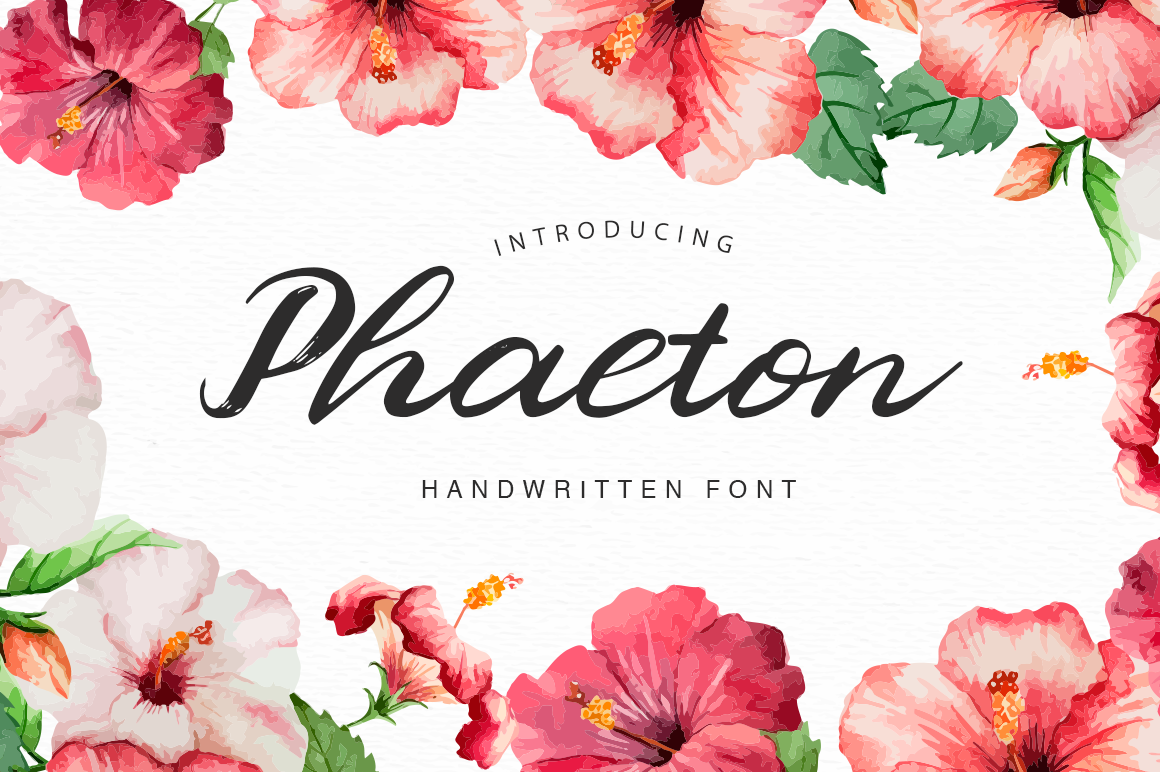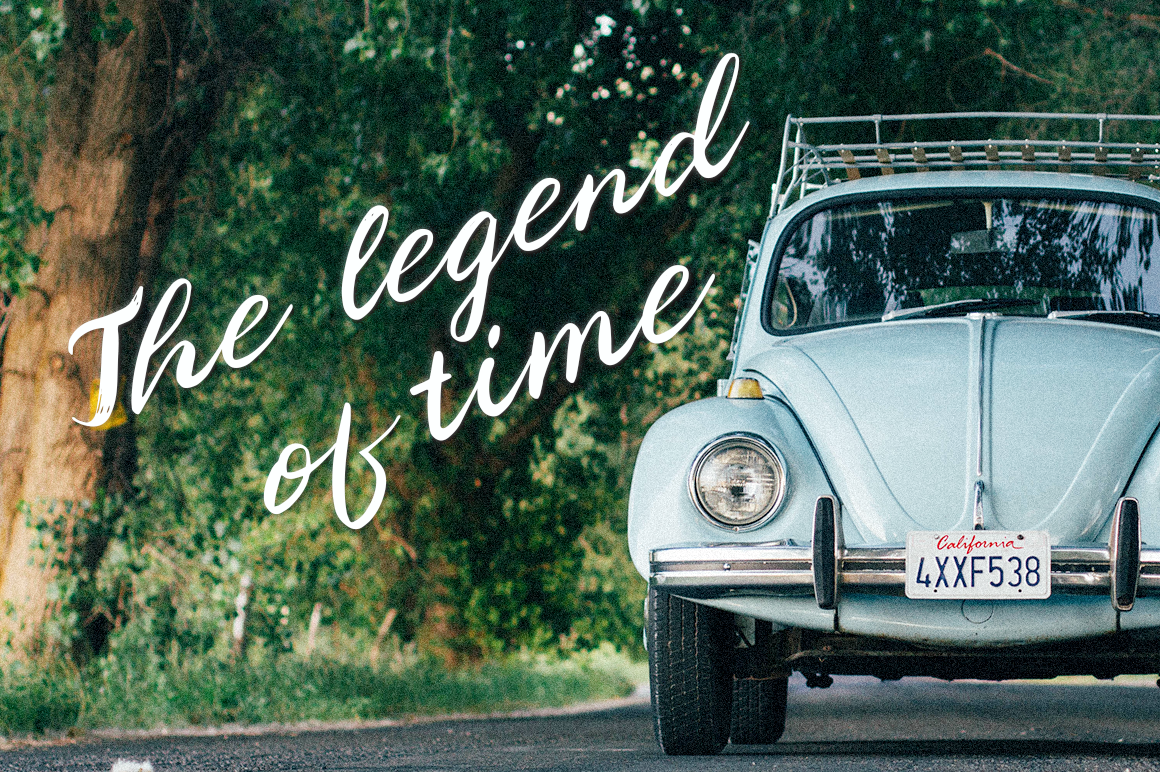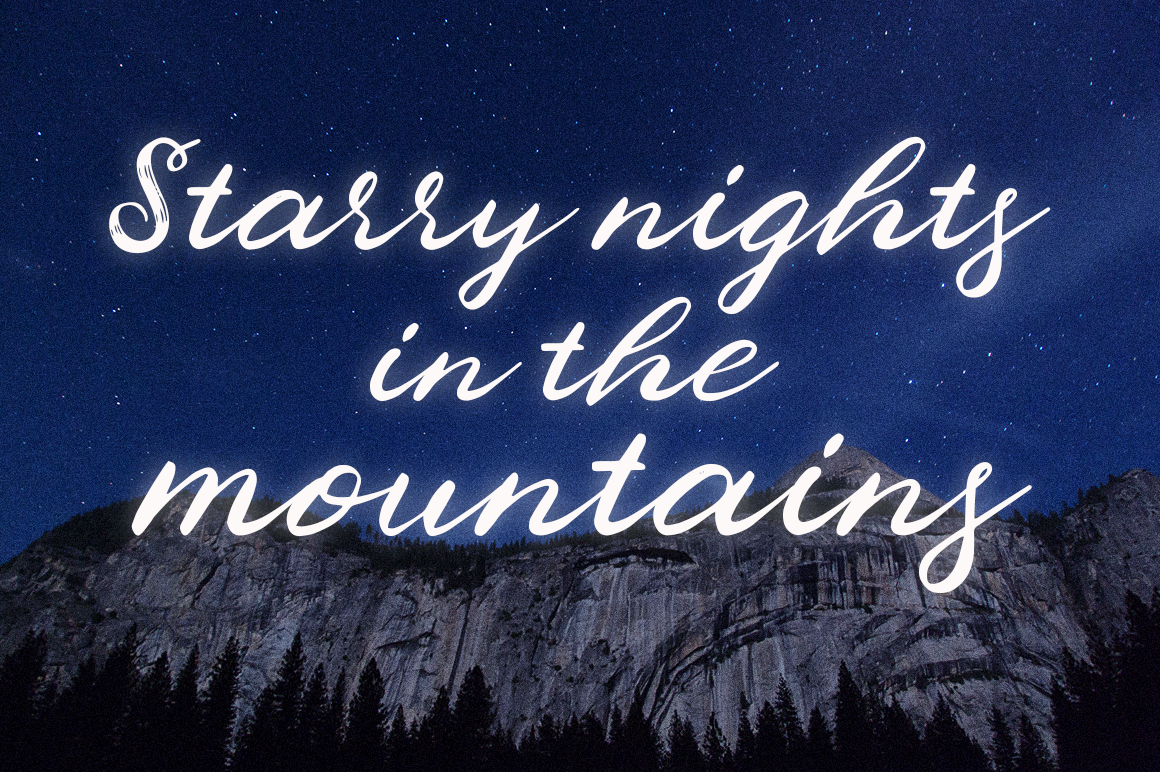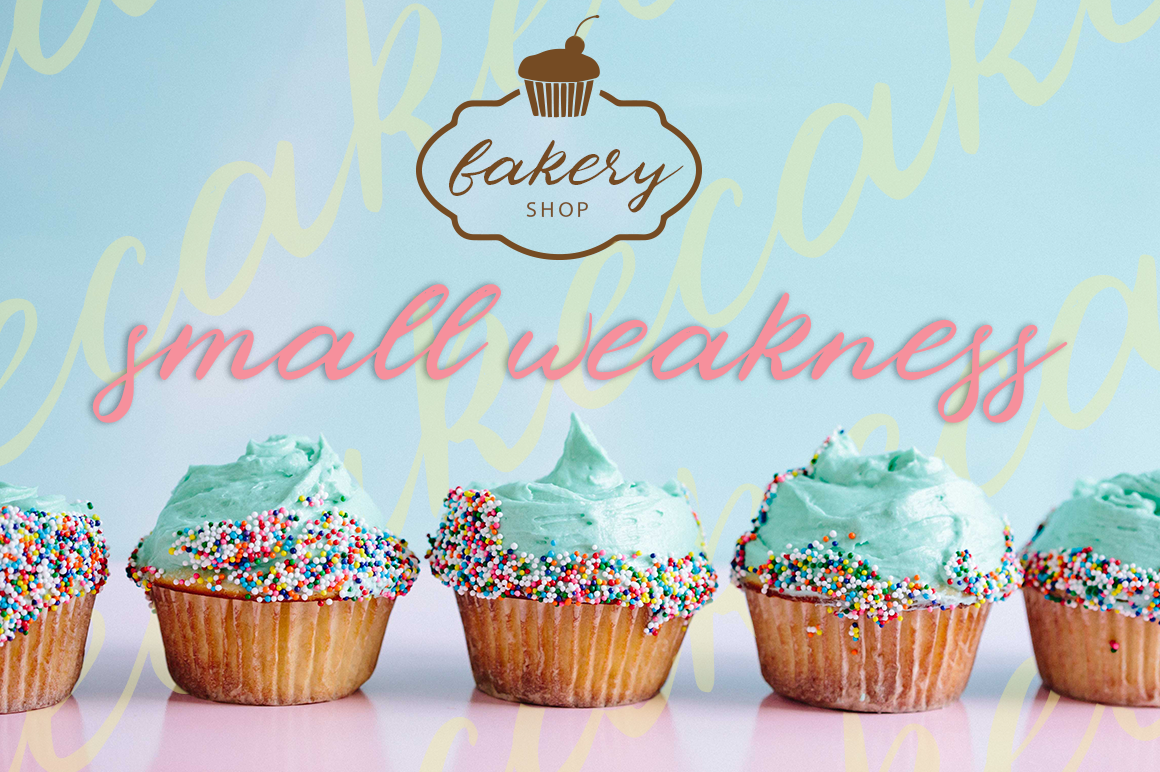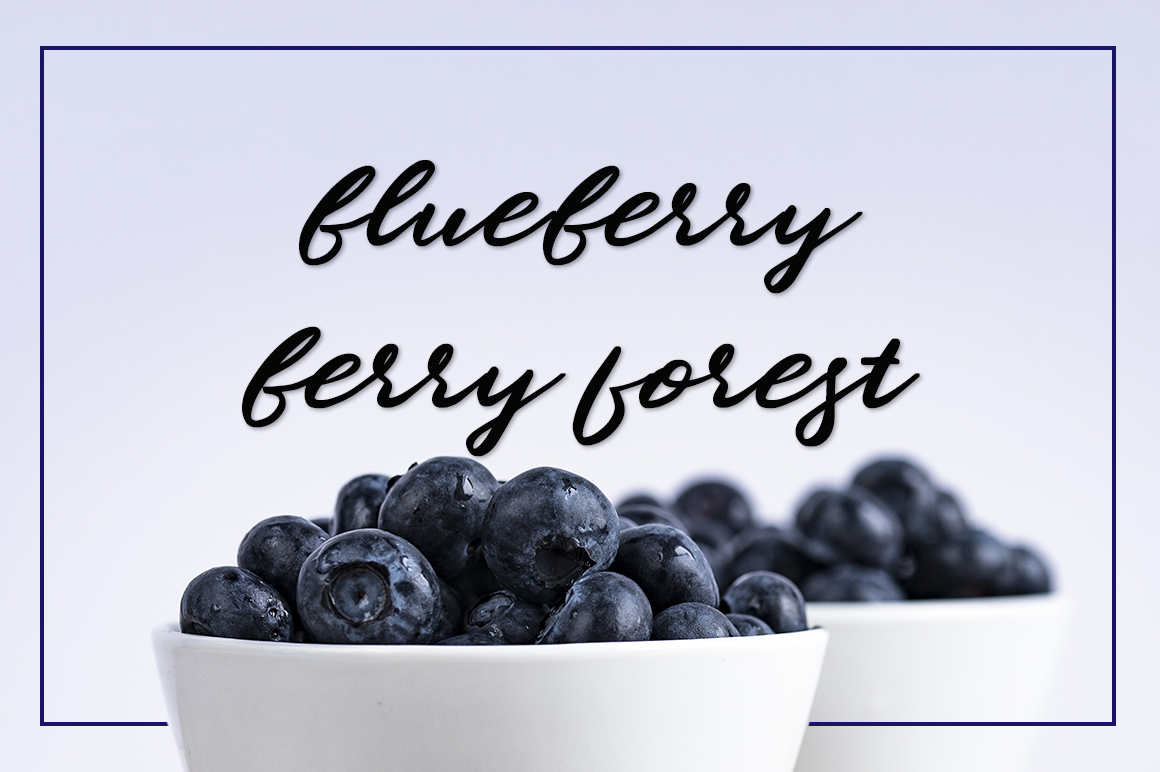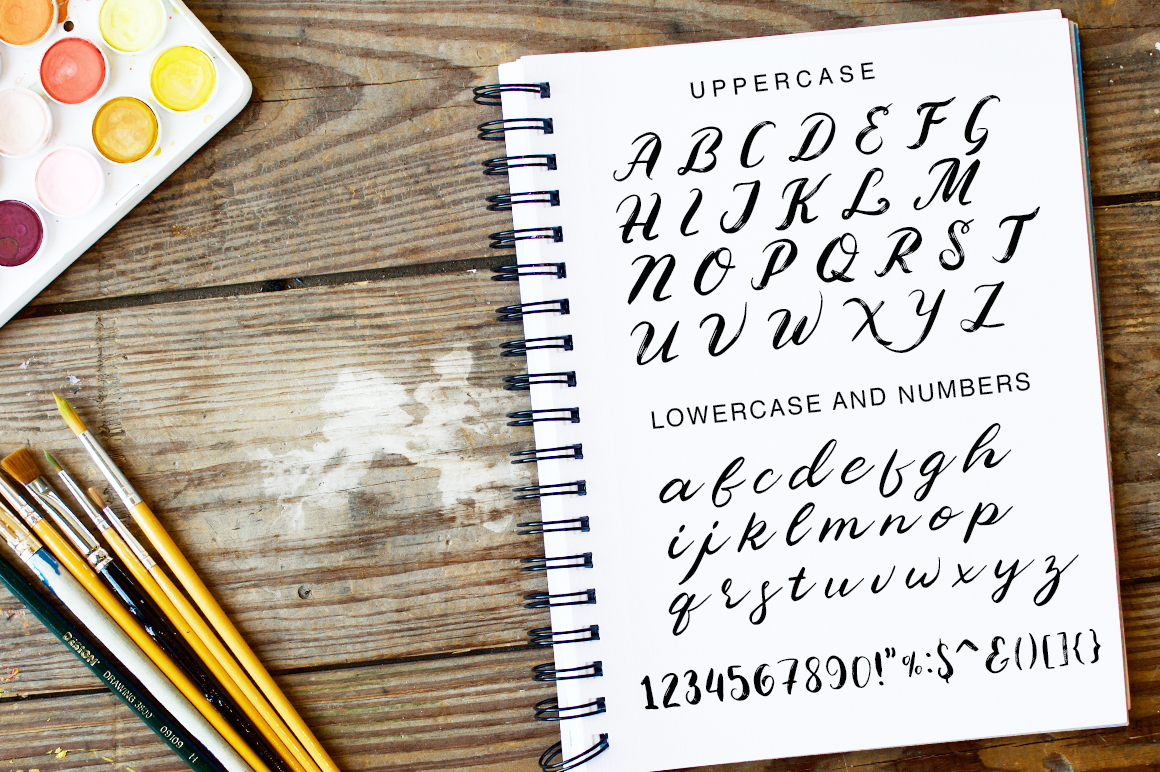
HomeScript FontsPhaeton Font Script Fonts Phaeton Font FacebookXPinterestWhatsApp Phaeton Font Poster 2 Phaeton Font Poster 3 Phaeton Font Poster 4 Phaeton Font Poster 5 Phaeton Font Poster 6 Phaeton Font Poster 7 Phaeton Font Poster 8 About Phaeton Font Phaeton is a fluid handwritten font. It’s ideal for branding or adding decorative text to your projects. DOWNLOAD ON CREATIVE FABRICAThis font is sold and delivered by Creative Fabrica. Font Canyon may earn a commission if you buy through this link. People also explored Vanelyna Font Windha Font Aesthetic Monoline Font Better Moods Vintage Font Adinda Font Good Vintage Font Persimmon Font Periwinkle Font Rekasa Font 305 0 TagsPhaeton Font Previous articleMuthike FontNext articleFloryfic Font LEAVE A REPLY Cancel reply Comment: Please enter your comment! Name:* Please enter your name here Email:* You have entered an incorrect email address! Please enter your email address here Website: Save my name, email, and website in this browser for the next time I comment. Personal Use Free The Winter Personal Use Free Read more about this font Good Luck Personal Use Free Read more about this font Hollow Personal Use Free Read more about this font Browie Personal Use Free Read more about this font BLOG Best Fonts for T-Shirt Design – Top 2025 Picks In 2025, t-shirt design has become more than just fashion—it's a form of self-expression. Whether you're... Best Fonts for YouTube Videos: Make Your Thumbnails Stand Out Exploring Font Trends Fonts That Capture the Spirit of New York City